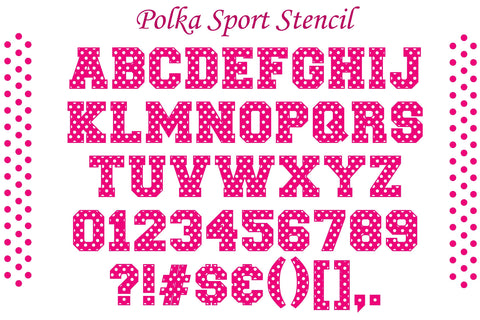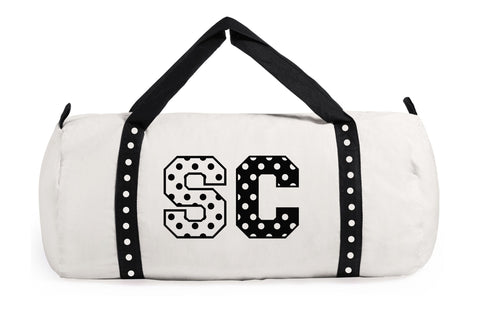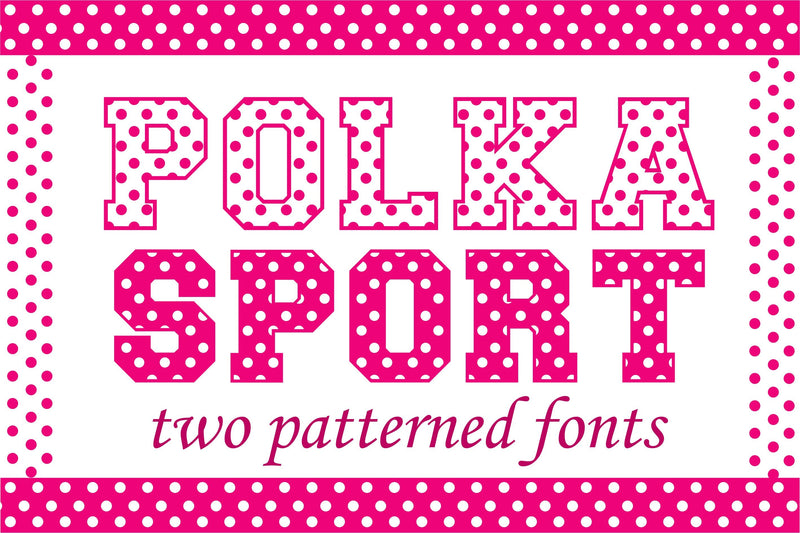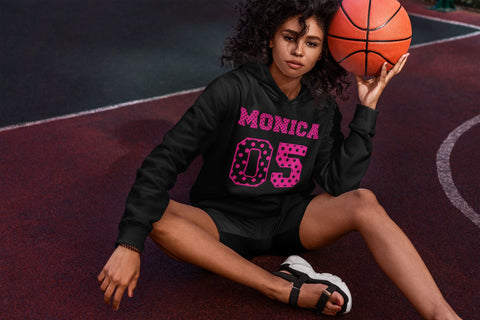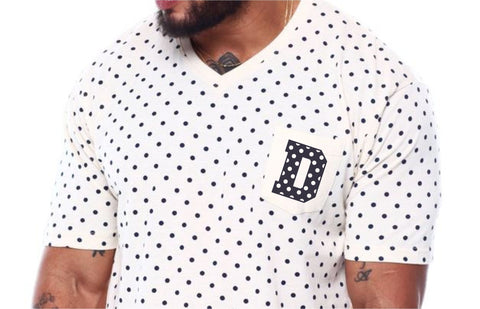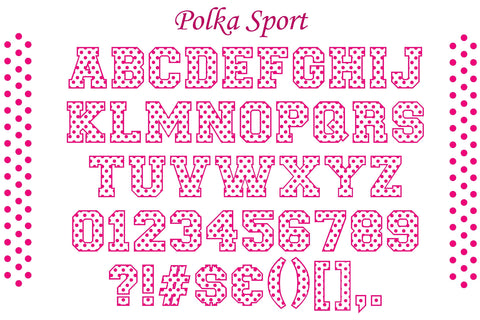
Polka Dot Sport Font
Polka Sport is a brand new decorative font.
It can be used in your new projects such as t-shirt designs, posters, book covers and much more.